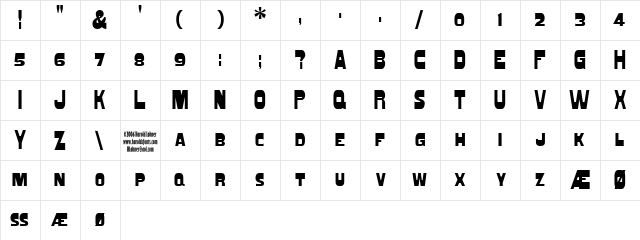
Blacktop Small Caps Regular
Design Context for Blacktop Small Caps Typeface
Blacktop Small Caps takes a measured approach to typography — its balanced proportions and neutral character make it a reliable workhorse for both digital and print work.